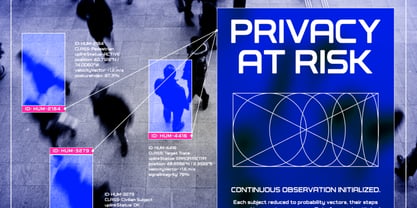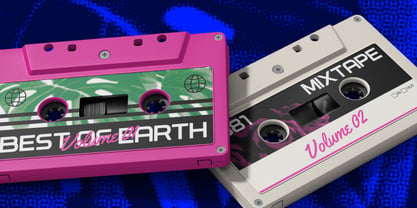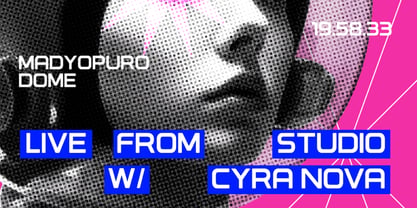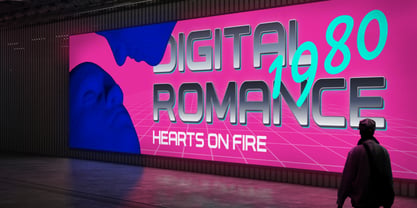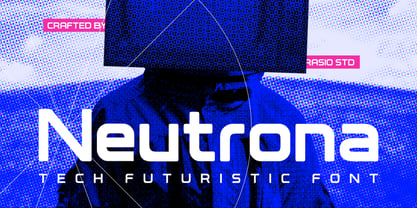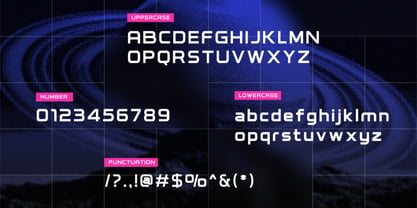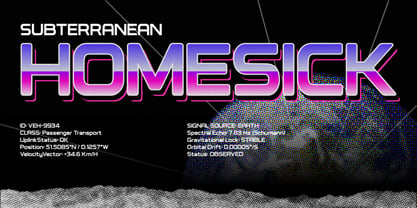
Neutrona
Die Schriftfamilie Neutrona wurde von Fajar Indra entworfen und von Rasio Studio veröffentlicht. Neutrona enthält 1 Stile. Mehr über diese Familie
Neutrona is a modern rounded sans‑serif typeface crafted for design projects that merge sleek minimalism with futuristic sensibility. Its smooth curves, gentle rounded terminals, and geometric clarity strike a balance between friendly approachability and digital sophistication. Neutrona’s letterforms are clean and consistent giving your design a polished, contemporary look whether on screen or in print. The typeface includes uppercase and lowercase letters, numerals, punctuation, and essential symbols, offering broad basic support for standard Western Latin alphabets. Neutrona is ideal for tech‑forward branding, UI/UX design, modern web and mobile interfaces, digital product visuals, startup identity, and editorial work that demands a clean and approachable yet refined aesthetic. It also fits well for packaging, marketing materials, and any creative output from posters to social media graphics where you want to combine friendliness with contemporary polish.